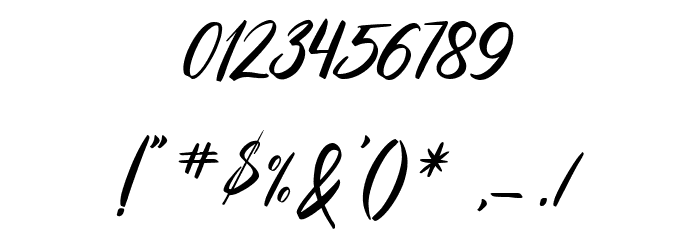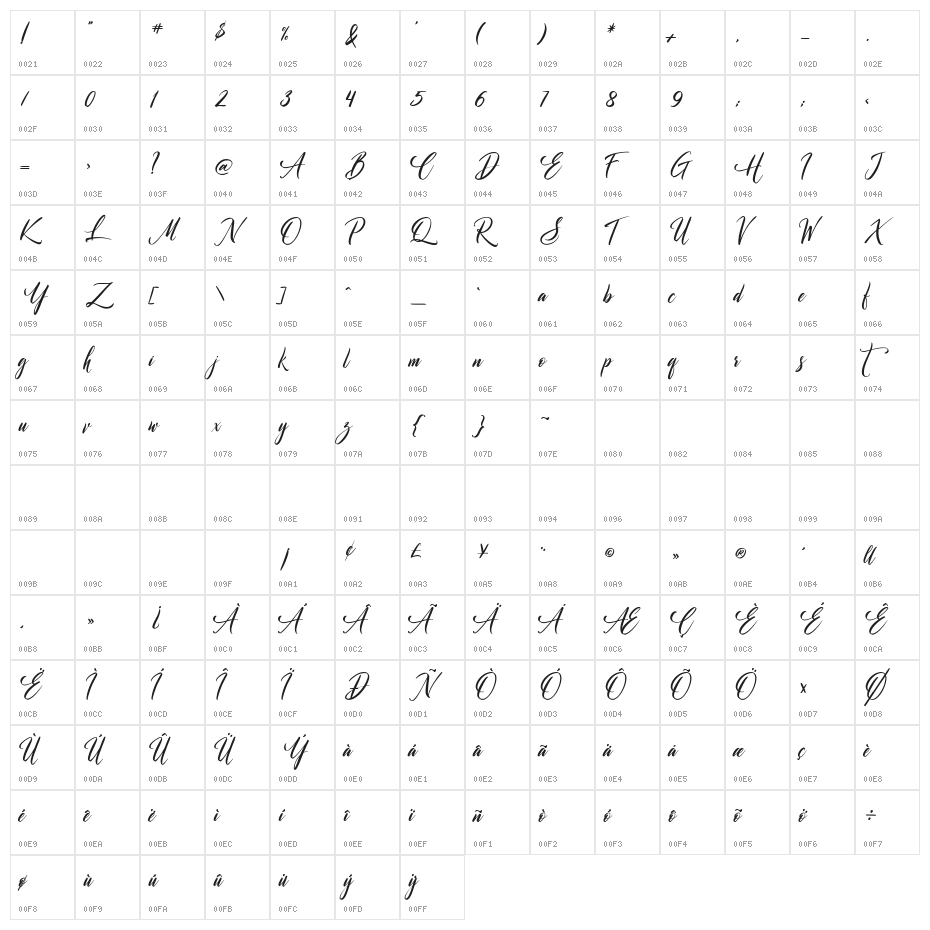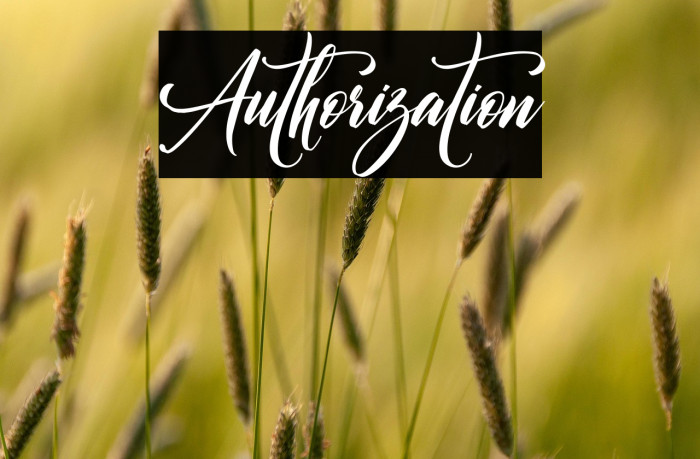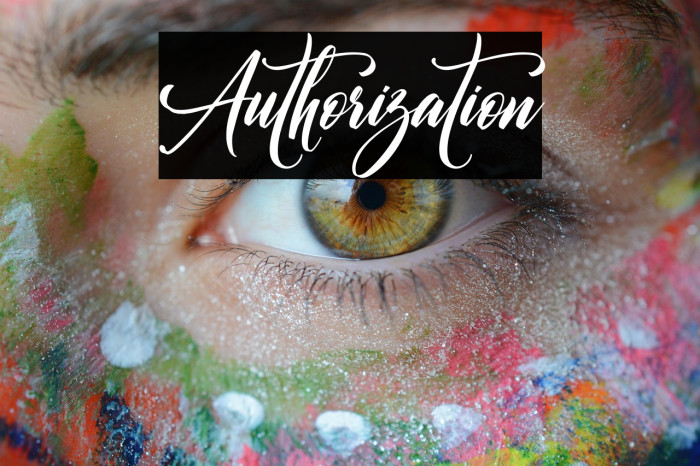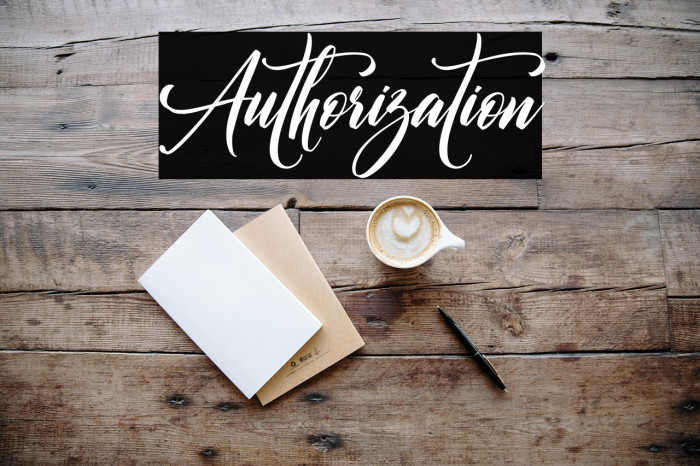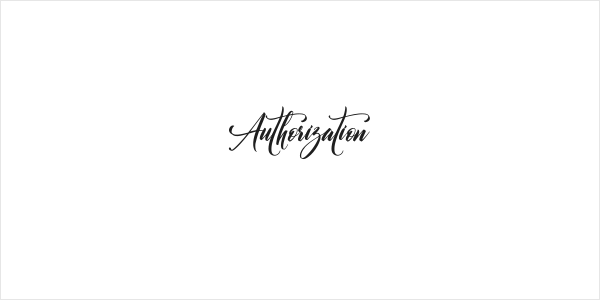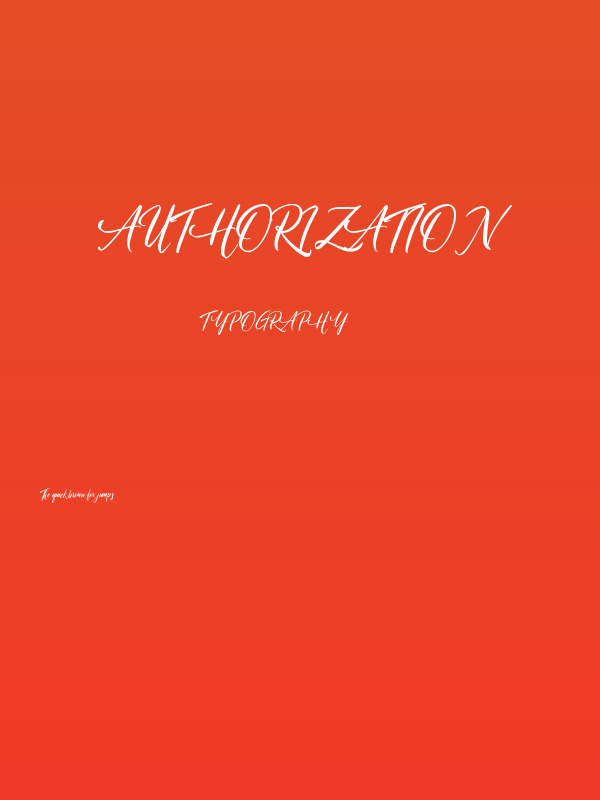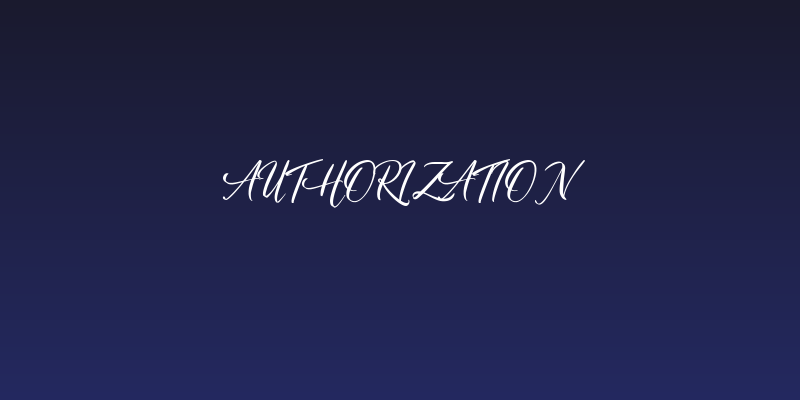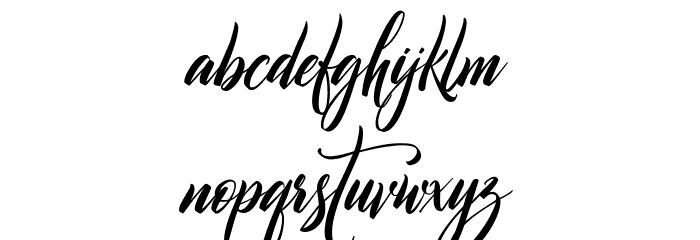
Authorization Font
Authorization Description
This font exudes elegance and sophistication with its flowing, cursive style. The letters are intricately designed, featuring smooth, sweeping curves and delicate flourishes that give it a handwritten appearance. The uppercase letters are bold and prominent, while the lowercase letters maintain a graceful continuity. Numbers and special characters are crafted with the same attention to detail, ensuring a cohesive look across all elements. The overall design is both artistic and legible, making it suitable for a variety of creative applications.
Use CaseLogos, Invitations, Decorative text
Proposed ProjectsIdeal for wedding invitations, greeting cards, branding, and logo design.